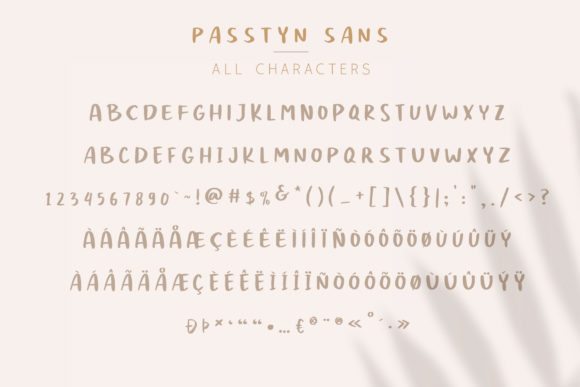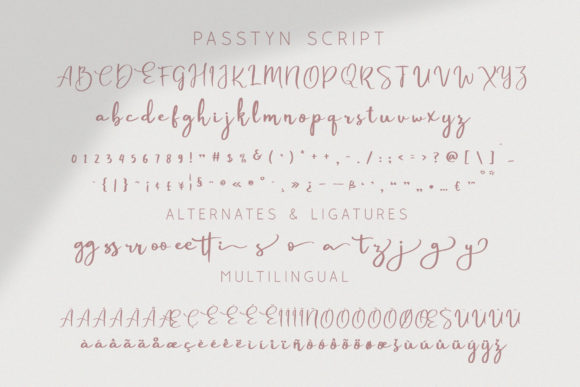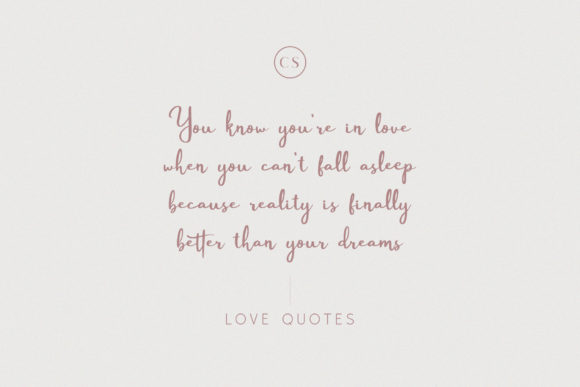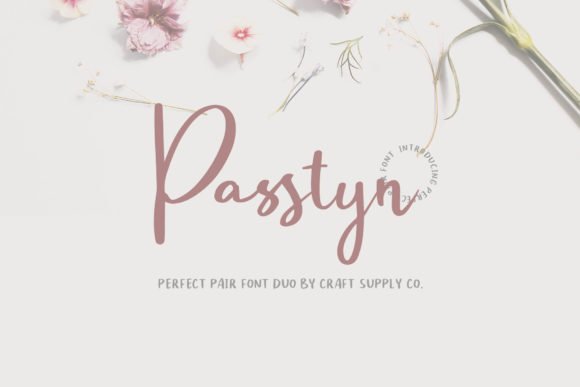
Introduction to Passtyn Duo Font
Passtyn is a beautiful and fun duo with incredible style.
Get inspired by its light charm .
Key Features of Passtyn Duo Font